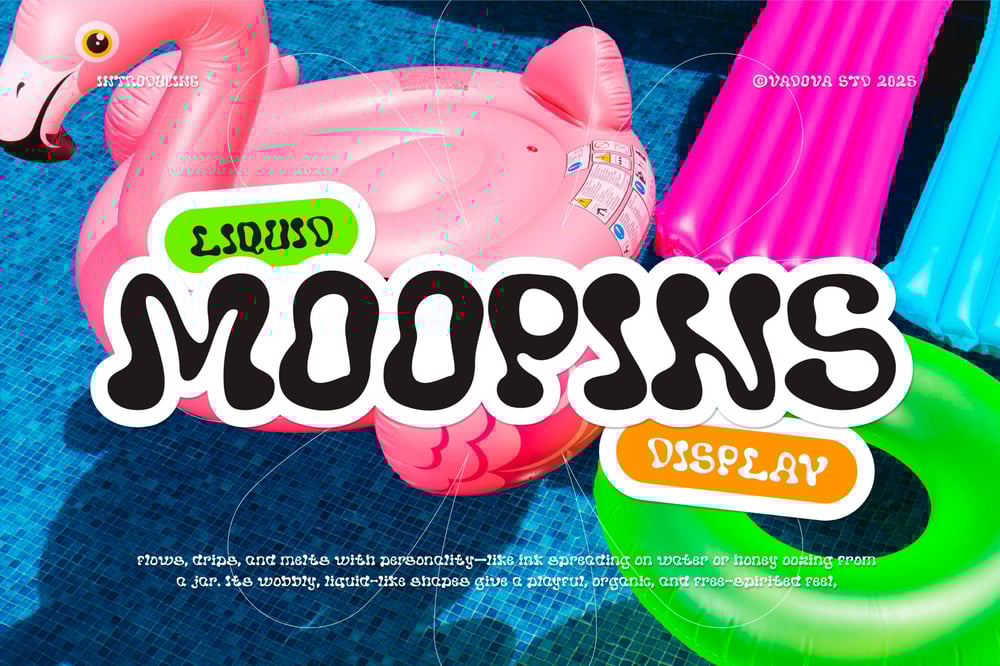
Moopins Font Family was designed by published by Vadova Std. Moopins contains 1 styles and family package options. Moopins is a liquid display typeface with playful, wobbly shapes that mimic the fluidity of ink, water, or melting honey. Its organic, free-spirited feel makes it perfect for branding, posters, social media graphics, and creative packaging. The font’s dripping, bubbly aesthetic adds a fun and energetic touch to summer-themed designs, party invitations, and artistic projects. With its bold, eye-catching style, Moopins brings a dynamic and quirky personality to any design composition.Uppercase & Lowercase charactersNumeral & Punctuations